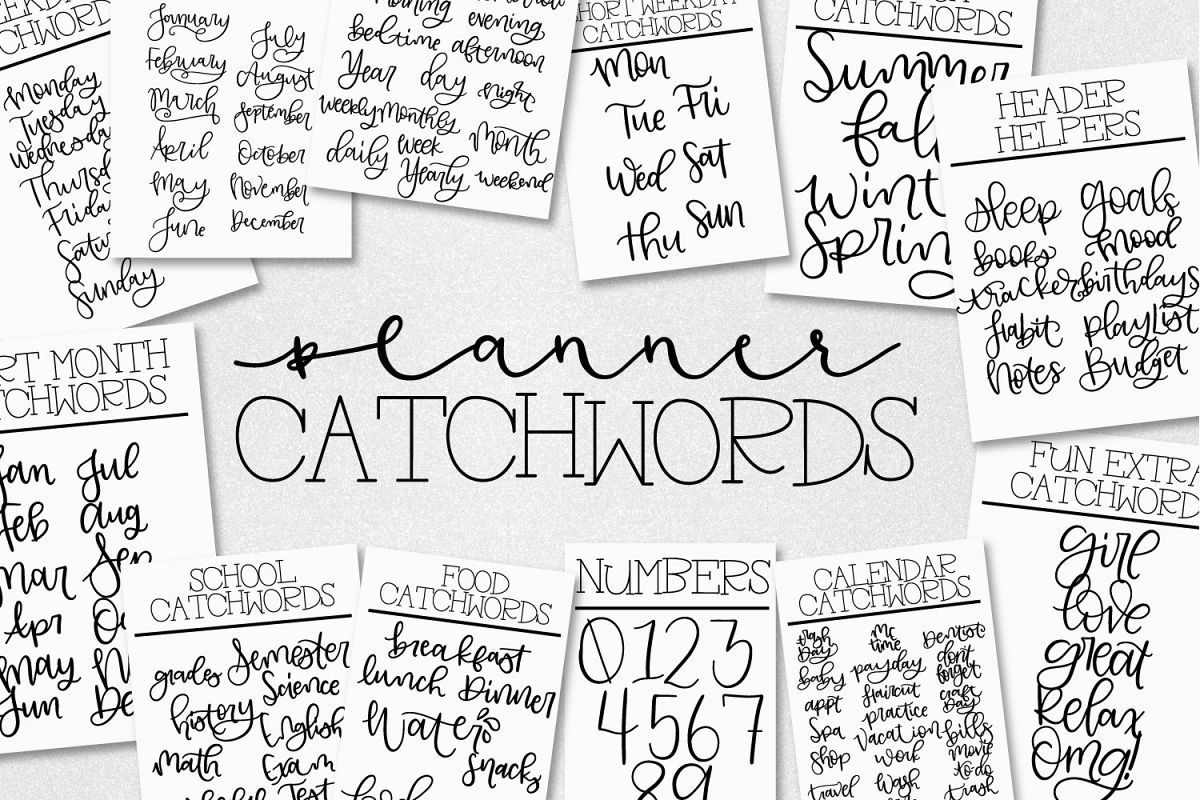
Created By Justina Tracy
Planner Catchwords - Over 100 Catchwords In Font Form
Planner Catchwords was created out of convenience. I use my digital planner throughout the year and needed to set up a new one for 2019. As I started to plan how I would set my planner up for the new year, I decided to shortcut having to letter out so many of my own months, days and headers. This will allow me to just grab a bit of lettering when I need it, without all of the extra trouble. Comes with a character map to make navigating the two fonts easier.